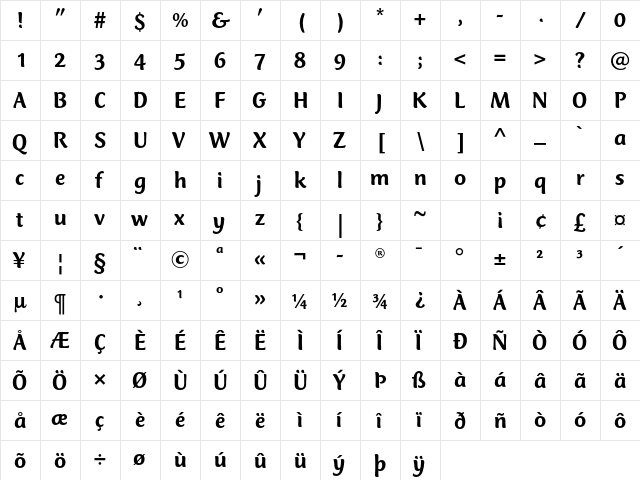
Mercurius CT Std Medium
| Designer | Adrian Williams |
Design Context for Mercurius CT Std Typeface
Mercurius CT Std takes a measured approach to typography — its balanced proportions and neutral character make it a reliable workhorse for both digital and print work.